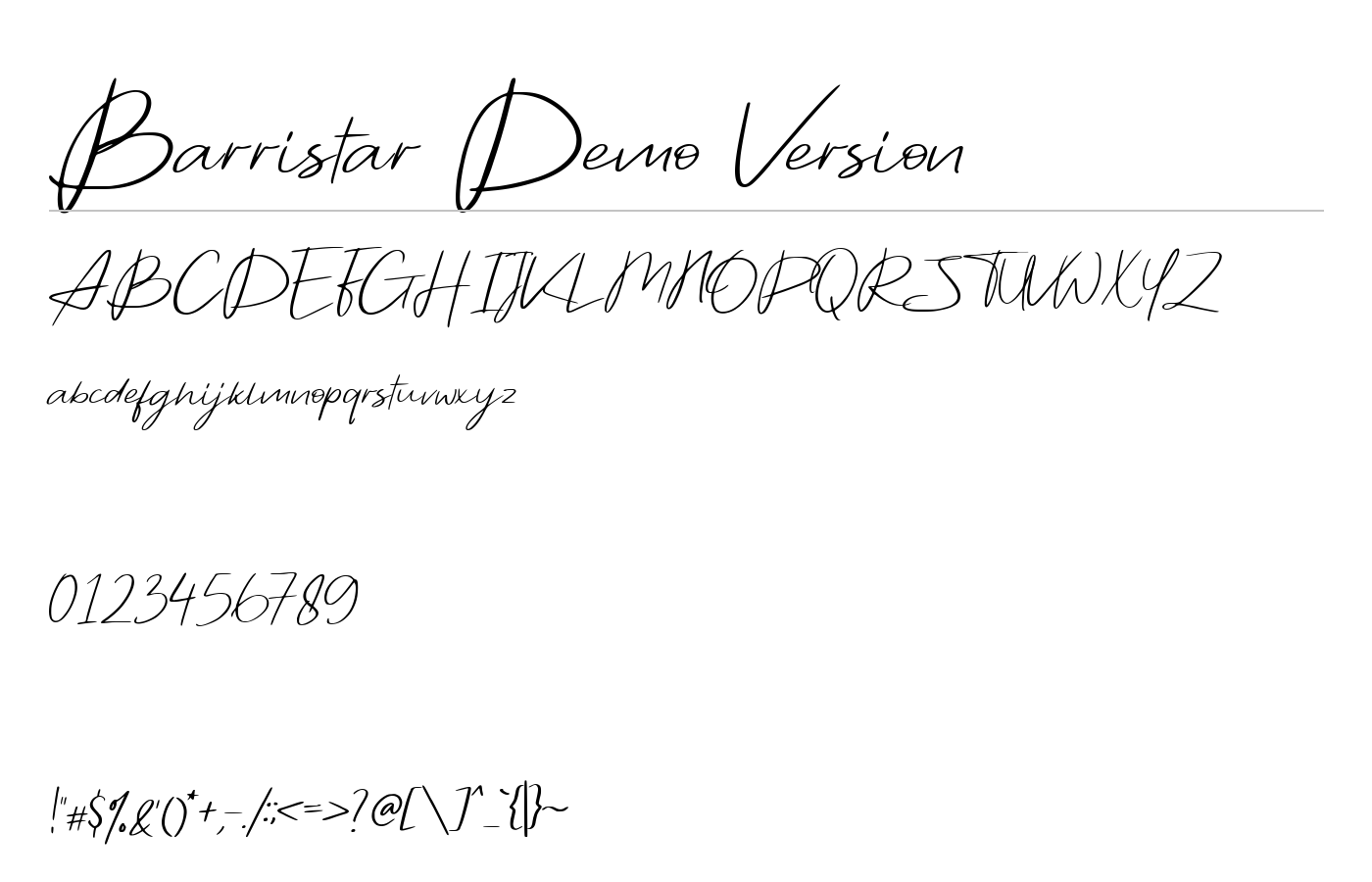
Barristar Demo Version is a delicate, handwritten script font with a light and airy feel. Its slender, slightly irregular letterforms and flowing strokes bring a personal, elegant touch, making it ideal for invitations, branding, and creative projects that seek a graceful yet casual aesthetic. This font works well where a refined, artistic handwriting style is desired, adding warmth and sophistication without feeling too formal.
Barristar Demo Version Font
About Barristar Demo Version Font